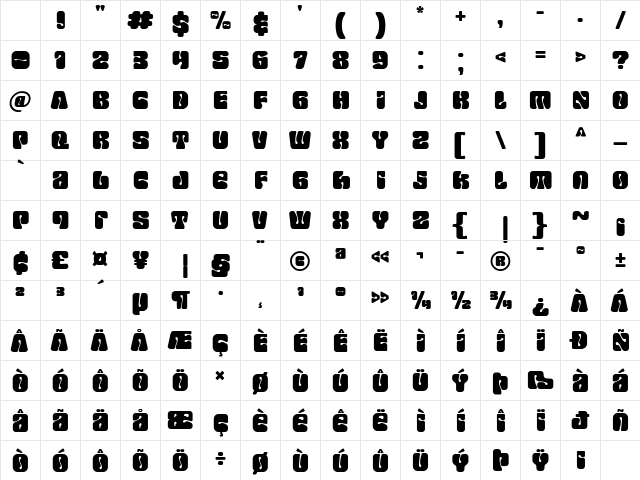
Lova Power brings high-energy athletic personality to the page - its confident, muscular forms are built for impact.
Pro Tip: Use Lova Power in all-caps headlines where its athletic energy can fully express itself. Pair with a solid, simple sans for supporting text.